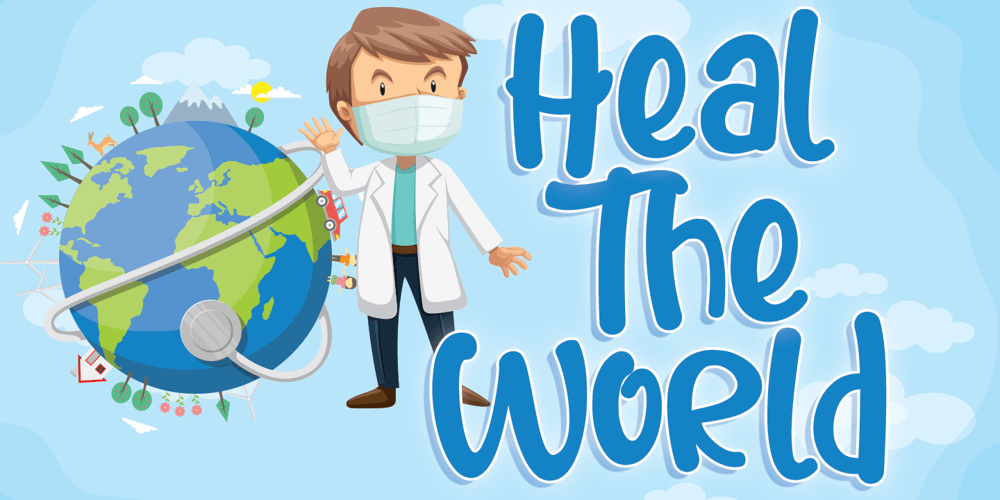
Heal The World Font Family was designed by Thomas Aradea and published by Letterara. Heal The World contains 1 styles and family package options. Heal The World is a cute and sweet handwritten font with an incredibly friendly feel. This font will turn any creative idea into a true piece of art!This font is PUA encoded which means you can access all of the cute glyphs with ease! It also features a wealth of special features including ligatures.